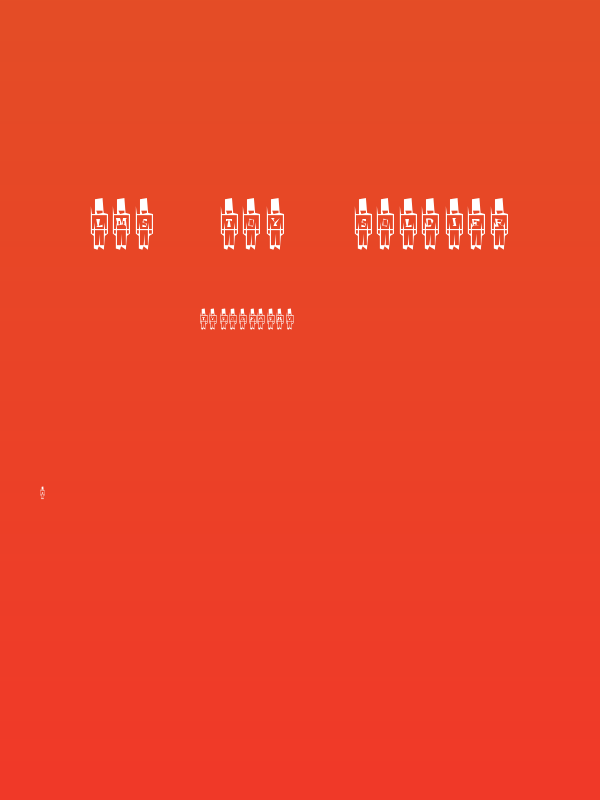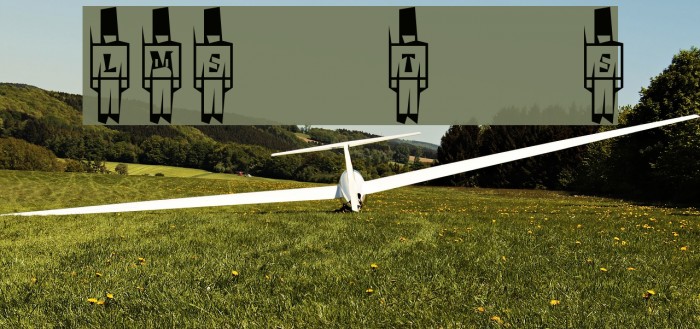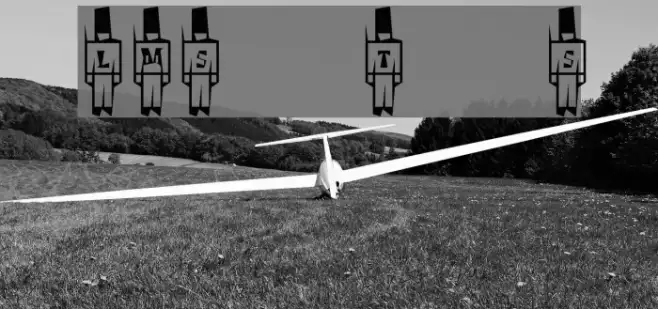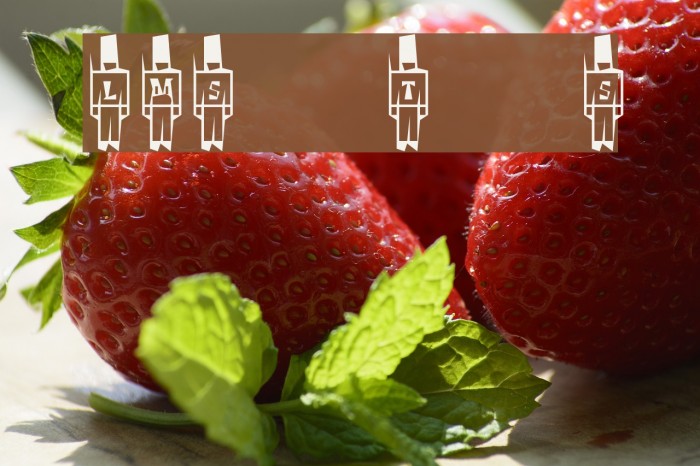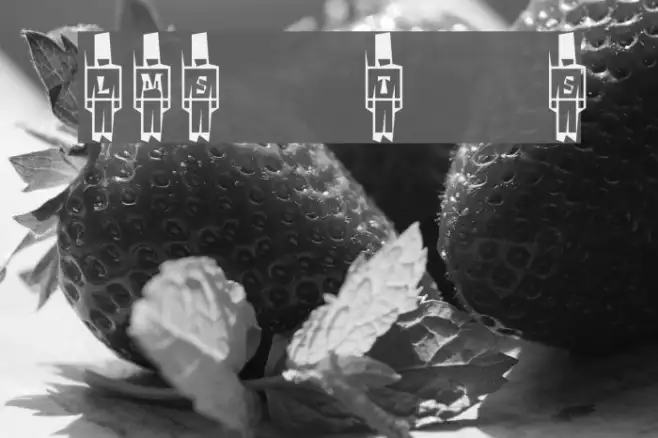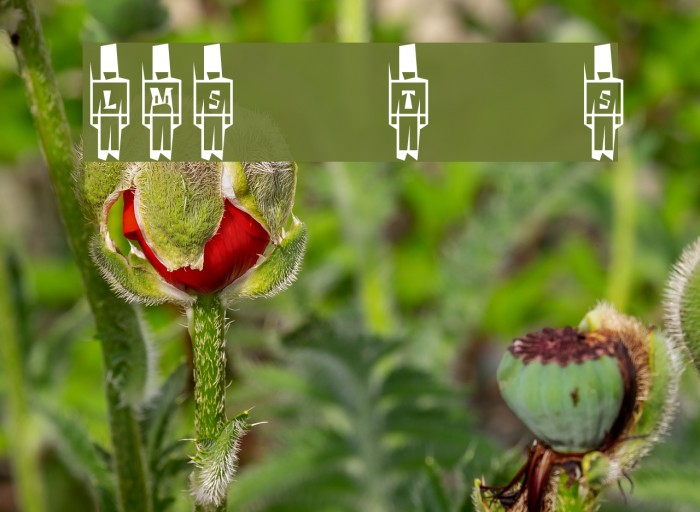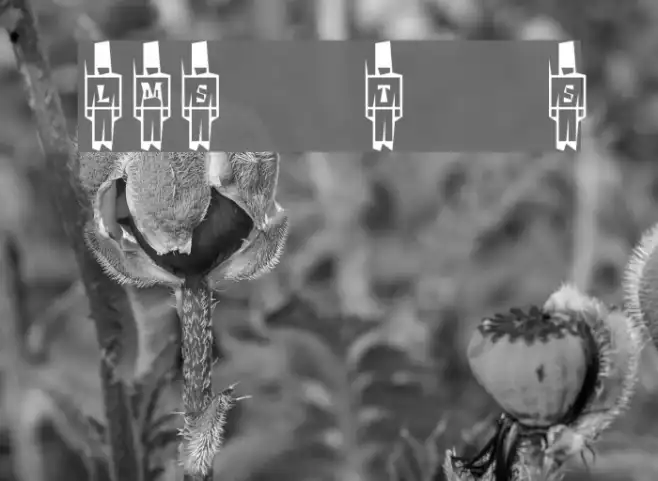
LMS Toy Soldier Font
LMS Toy Soldier Description
This font is a playful and whimsical design where each letter is creatively integrated into the body of a toy soldier figure. The characters are bold and cartoonish, with a strong emphasis on the visual representation of a soldier's uniform, complete with a tall hat and distinct outlines. The letters are uppercase and maintain a consistent style throughout, making them easily recognizable while adding a unique decorative flair. This font is perfect for projects that aim to capture a sense of fun and imagination, such as children's books, playful branding, or themed event materials.
| Overall Style | Playful, Whimsical, Decorative |
| Proposed Projects | Ideal for children's books, playful branding, themed events, and decorative posters. |